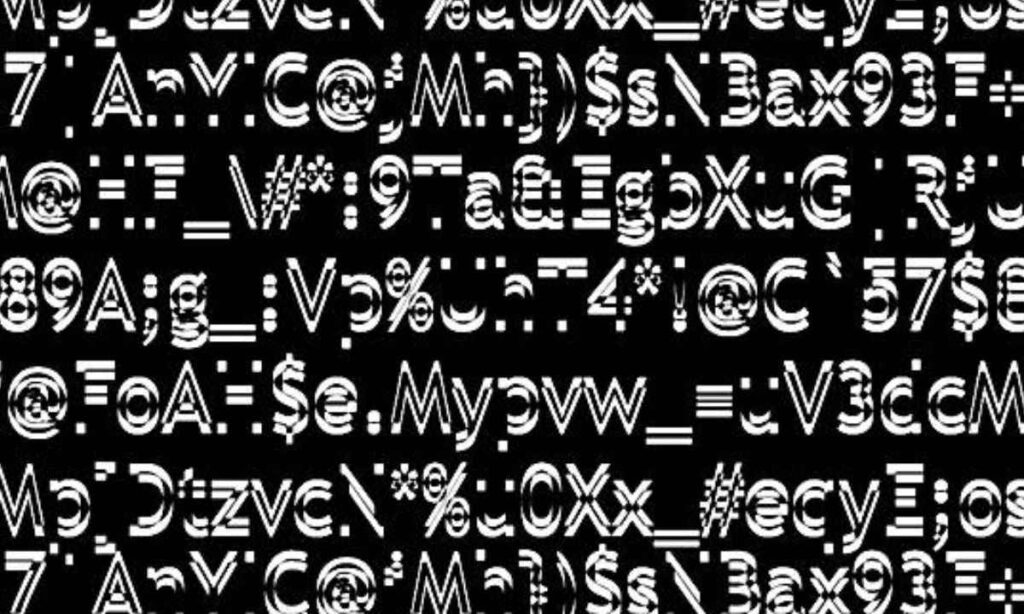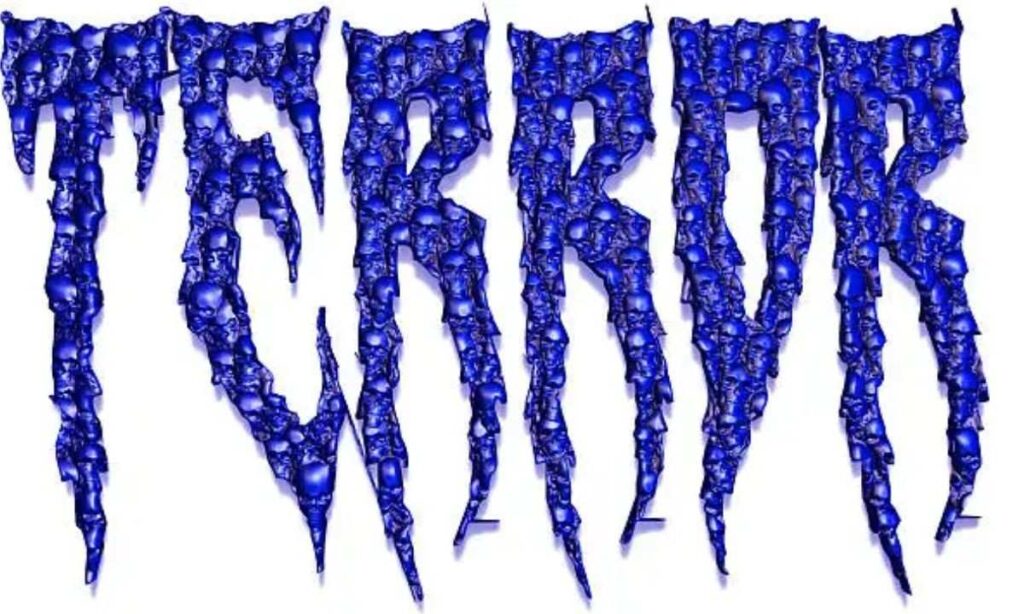
Freaky Font Generator โ€“ ๐“’๐“ธ๐“น๐”‚ & ๐“Ÿ๐“ช๐“ผ๐“ฝ๐“ฎ Free Onlineย
Normal text feels flat on social media. Freaky fonts transform plain words into eye-catching fancy text that stops scrollers on TikTok, Instagram, Facebook, YouTube, Twitter, and WhatsApp. The Freaky Font Generator pulls from unicode to build wild text styles nobody ignores. Hit Generate, pick from All Styles, and your freaky text is ready to copy in seconds.
The Freaky Text Translator works like a creative switch. Type your normal text, explore every random style combination, and copy the result straight into your caption or bio. People who say I Love Freaky Fonts use it daily for designs that actually get attention. Every style feels fresh because the tool never repeats the same output twice.
Creepy Unicode Fonts
Creepy Unicode fonts pull from ancient writing systems buried deep in Unicode’s character set. Styles like AncientScript Style, DecorativeRunes, and PhoenicianMix use ancient characters and rune-like symbols that feel lifted from forgotten civilizations. These fonts carry a mysterious and dark energy that standard typefaces simply cannot match. The weird symbols and unicode symbols give text a symbolic weight that stops people mid-scroll.
Glitch Freaky Text
GlitchStrike Style combines glitch effects with layered unicode combinations to produce raw visual distortion on screen. Tools like I Love Freaky Fonts generate random styles instantly, mixing fancy text effects with bold script elements for a striking finish. Working across different generators, we noticed Freaky Text outputs vary widely depending on the symbol depth each tool pulls from. Shallow tools skip the good layers entirely and return flat, boring results.
TikTok Usernames and Comments
TikTok usernames live or die on first impressions. Creepy Unicode fonts like AncientScript Style turn a plain username into something users stop and stare at. DecorativeRunes and PhoenicianMix pull from ancient characters that feel rune-like and strange. That mysterious, almost dark energy makes your handle look unlike anything else on the platform. We tested several unicode symbols in comment sections and the engagement spike was immediate. Readers treated symbolic text like a hidden message worth decoding. A username dripping with weird symbols creates a freaky appearance that signals personality before anyone reads a single word.
Instagram Bios and Captions
Instagram bios reward visual texture more than raw shock value. Glitch Freaky Text using GlitchStrike Style combines glitch and strike effects that hit the eye like visual distortion mid-scroll. Pair that with bold script and fancy text effects built from unicode combinations, and your bio stops reading like a template. Random styles mixed into captions give plain sentences a life of their own. I Love Freaky Fonts started as a phrase we used internally, but it explains exactly why freaky text outperforms standard fonts in lifestyle and aesthetic niches. The free font generator style tools pulling from multiple unicode combinations let you preview dozens of looks fast.
How Freaky Fonts Actually Work
Unicode characters power every fancy text and stylish font you see online. These are not real fonts at all. Unicode assigns a unique code to each symbol, letter, and shape. Your device reads that code and displays the matching character. So when you type in a freaky text generator, the tool swaps your normal letters for Unicode lookalikes. The result copies like regular text because it technically is regular text.
That’s exactly why copy paste works across every platform. You grab a username full of strange shapes and drop it straight into TikTok Usernames, Comments, or bios without breaking anything. Social platforms like TikTok, Facebook, YouTube, Twitter, and WhatsApp all run on the same Unicode standard. There’s no special install, no font file shared between devices. A bold italic “A” in your Instagram Bios looks the same on a phone in Texas as it does on a laptop in California. That consistency is what makes freaky text so useful for captions, posts, profile pages, social media designs, and anything built to grab attention and push engagement in a viral direction.
Best Freaky Font Styles for Readability
Not every freaky text style works the same. Styles like BoldItalic Style and MathGreek Style stay clean and sharp. They use clear symbols that load well in any browser. DoubleDots Style, DoubleBrackets Style, and UnderlineBrackets Style add visual weight without breaking letter shape. These are decorative yet readable choices for headers or bold statements.
Heartsurrounded Style, StarSurrounded Style, FlowerSurrounded Style, and MusicSurrounded Style wrap each character in unique symbols. These work best in short bursts, not full paragraphs. After testing dozens of outputs across content projects, balanced styles with consistent spacing always perform better in real-world use. Unicode Characters copy cleanly across all platforms because they’re text, not images. Real fonts require file loading and can break on mobile or social platforms.
Freaky fonts turn ordinary text into scroll-stopping content across TikTok, Instagram, Facebook, and every platform where first impressions matter. Whether you choose creepy unicode styles, glitch effects, or bold italic combinations, the Freaky Font Generator gives you instant results you can copy and paste in seconds โ€” no sign-up, no downloads, no limits.